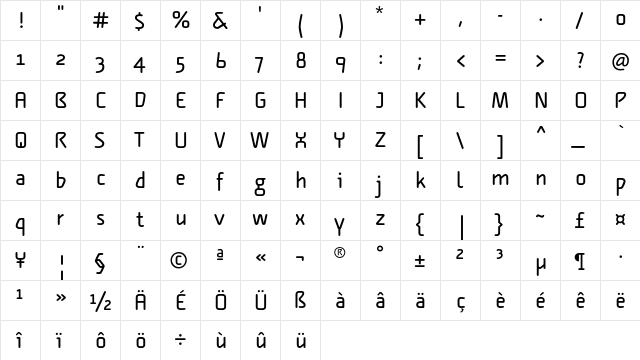
AlegaGreek-Normal Regular
| Foundry | Siegfried Rueckel, published by FontShop International for the FontFont library |
Design Context for AlegaGreek-Normal Typeface
AlegaGreek-Normal takes a measured approach to typography — its balanced proportions and neutral character make it a reliable workhorse for both digital and print work.